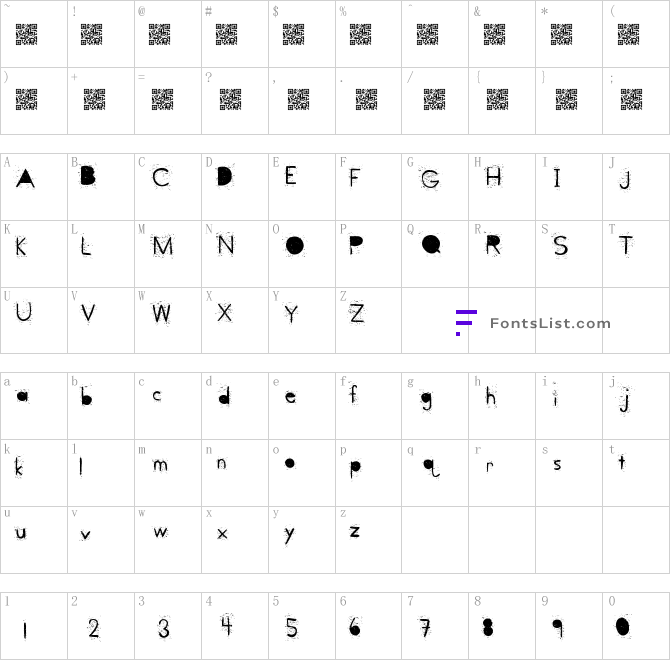
- Font Name:BangParty
BangParty.ttf is a very beautiful artistic font, BangParty.ttf is widely used in the design and printing of various books and pictures,BangParty.ttf has a strong visual impact,BangParty.ttf is a commonly used font in newspapers, magazines and books, and is used in posters, e-commerce Poster design, store design, logo design, font design and other fields.BangParty.